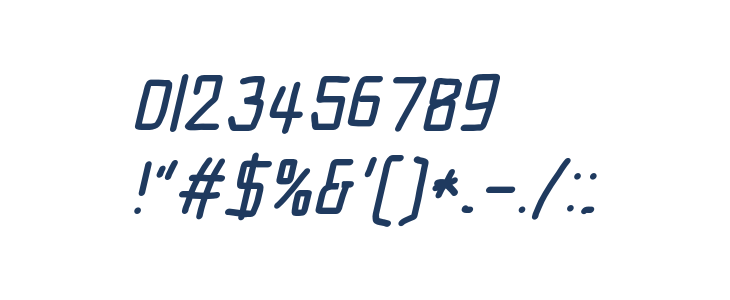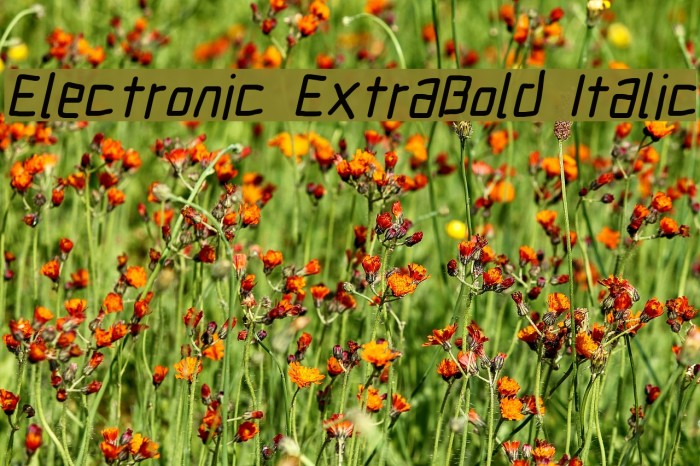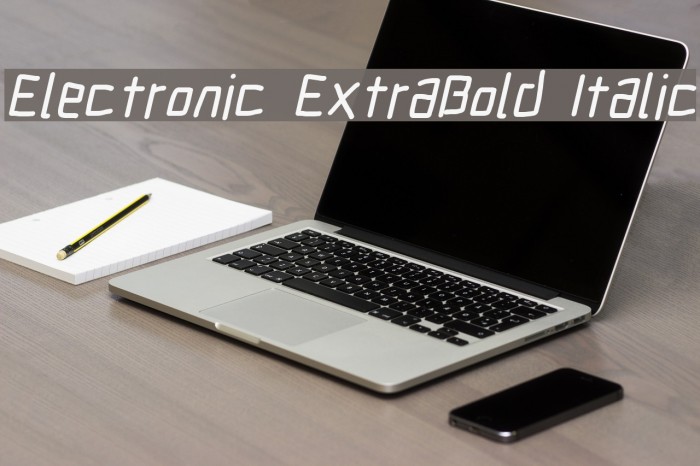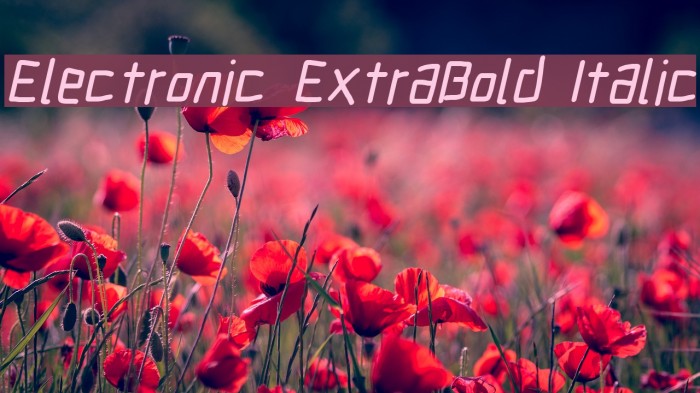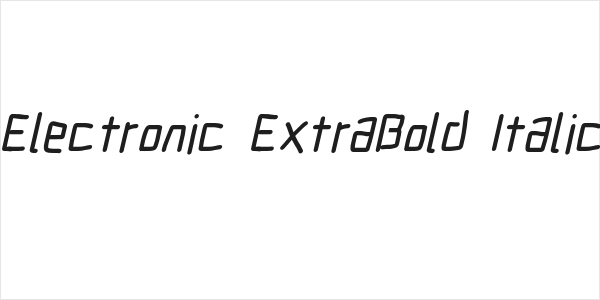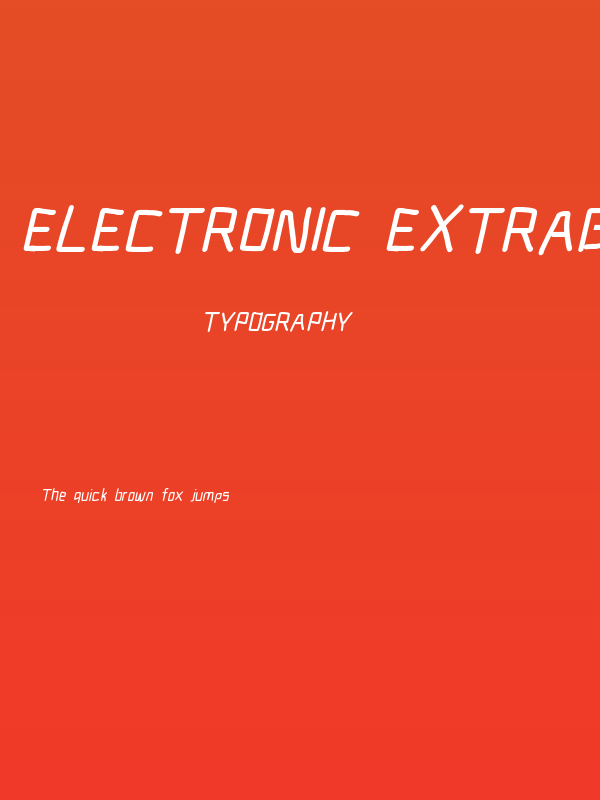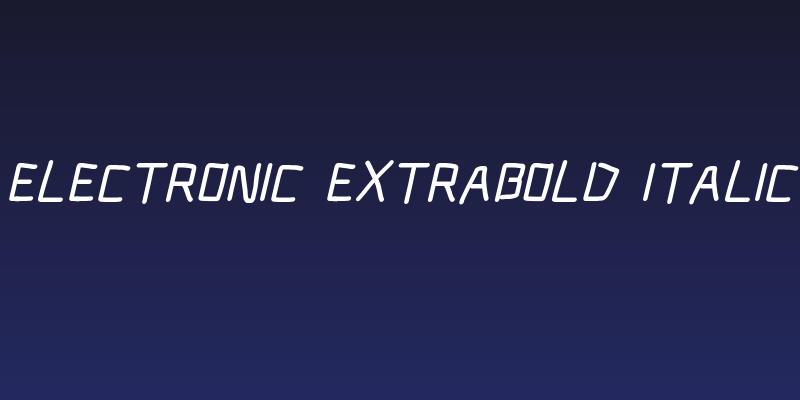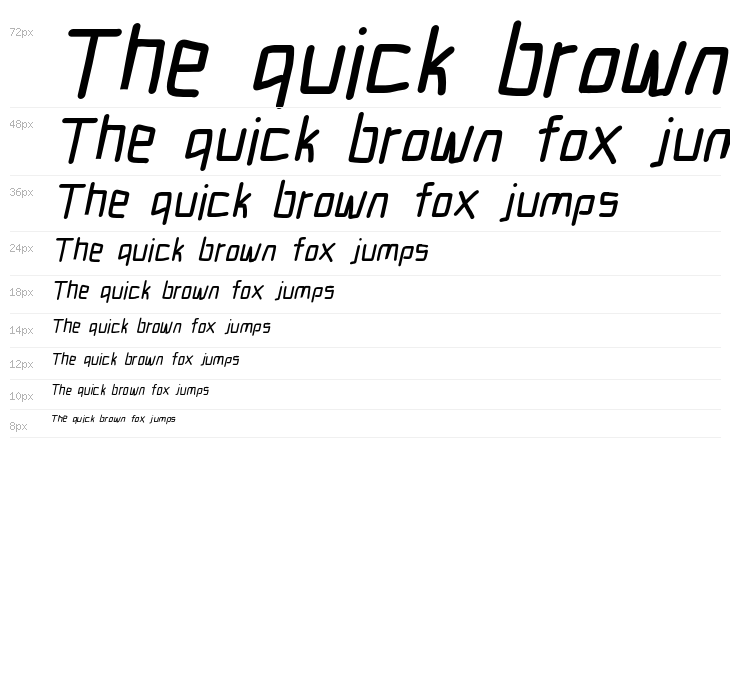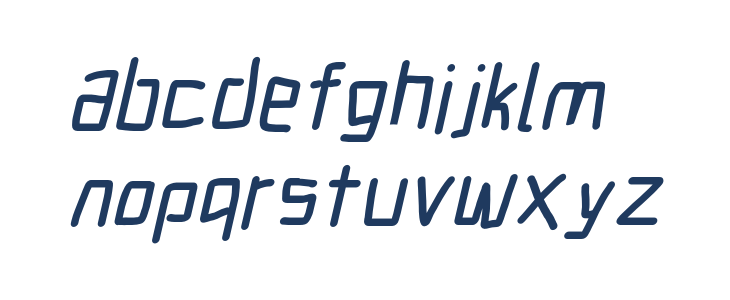
Electronic ExtraBold Italic Font
Electronic ExtraBold Italic Description
This font features a dynamic and modern design with a distinct italic slant, giving it a sense of motion and energy. The characters are bold and extra thick, providing a strong visual impact. The geometric shapes and angular lines contribute to a futuristic and technical appearance. The uppercase and lowercase letters maintain a consistent style, with rounded edges that soften the overall look. The numerals and special characters are designed to match the font's bold and italicized style, ensuring uniformity across all elements. This font is ideal for projects that require a contemporary and assertive aesthetic.